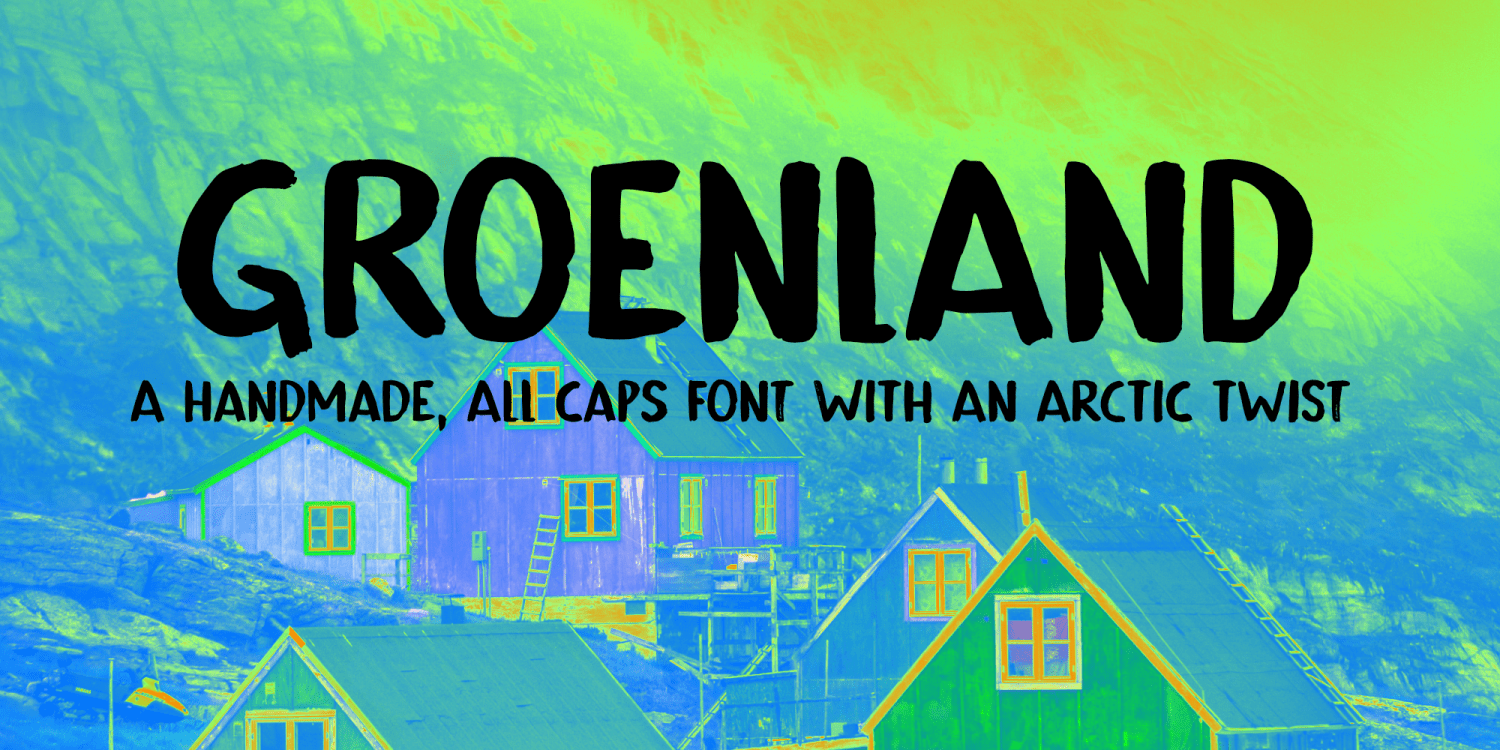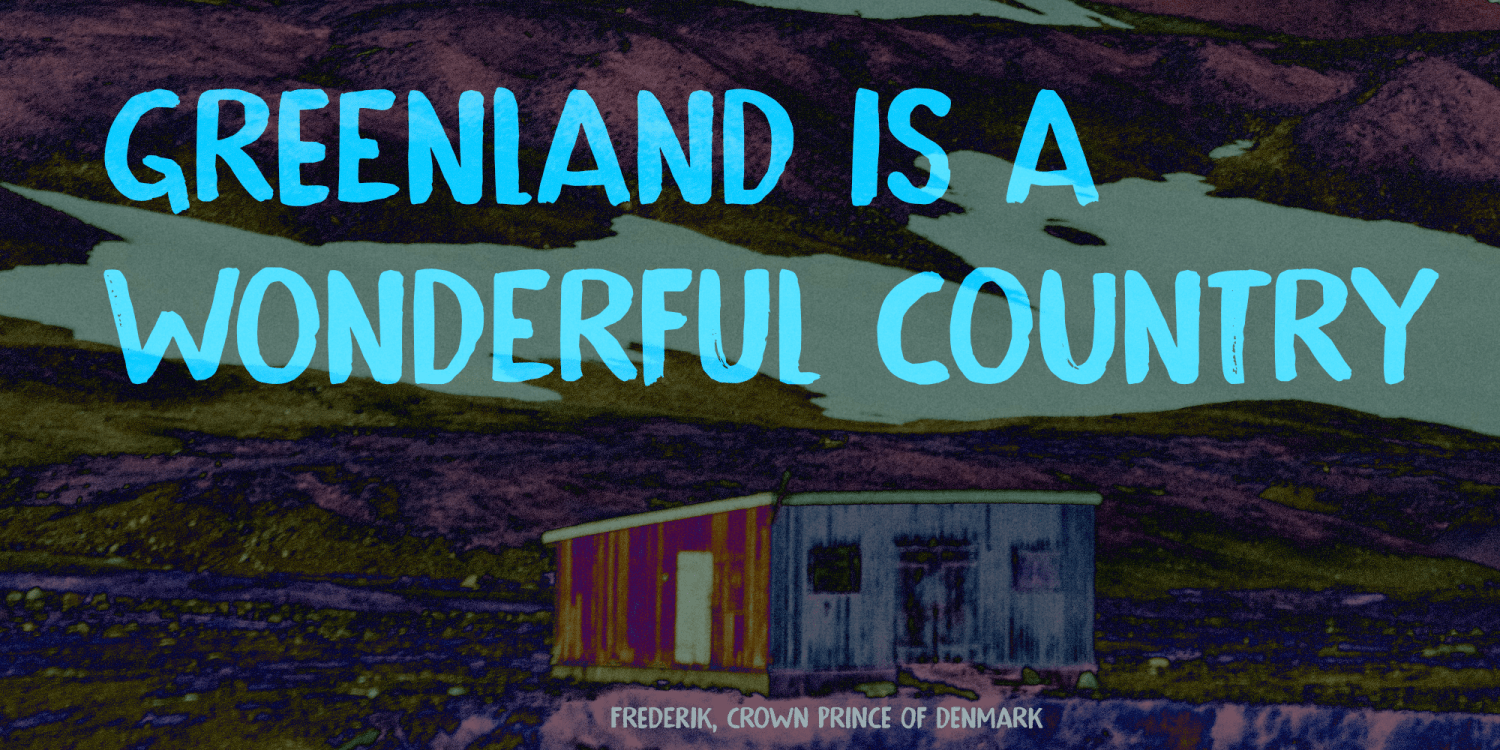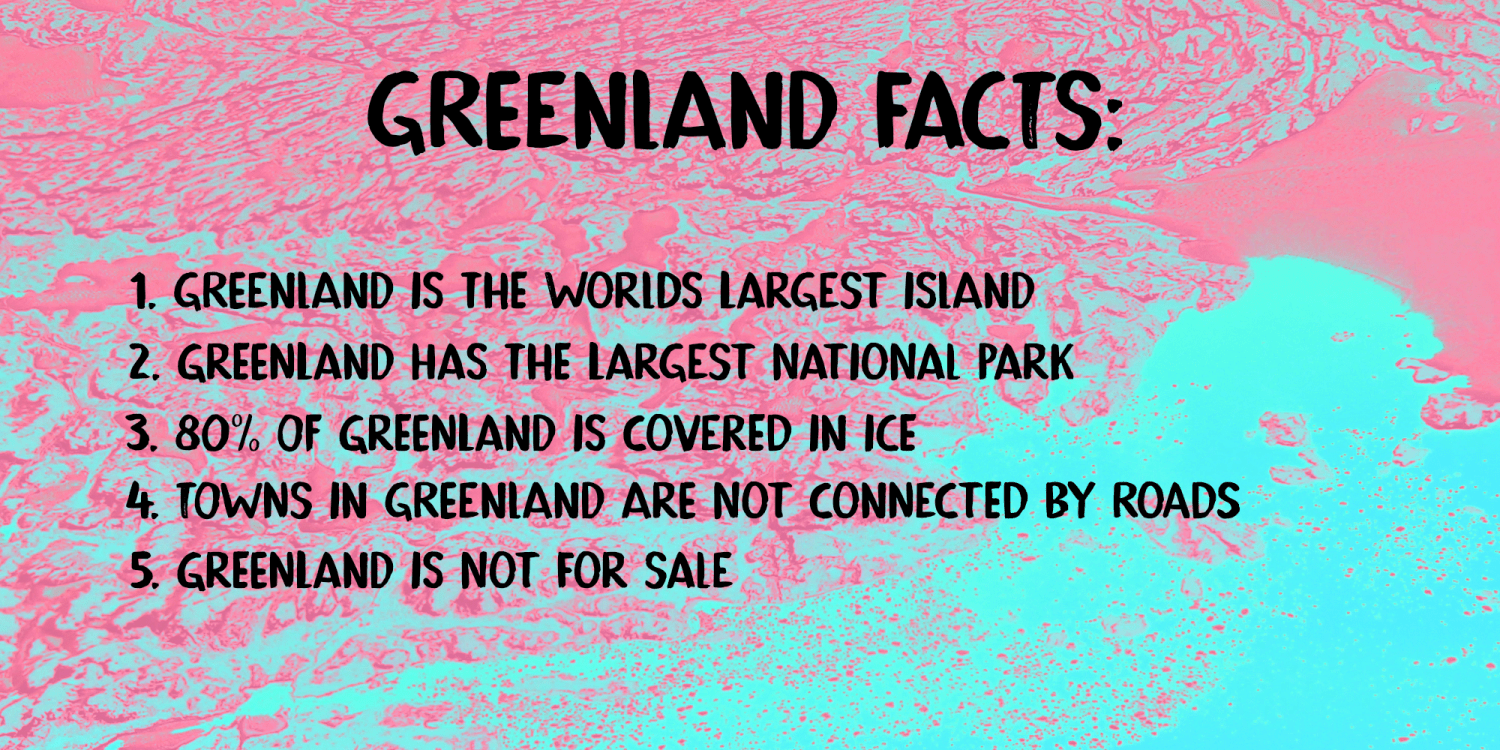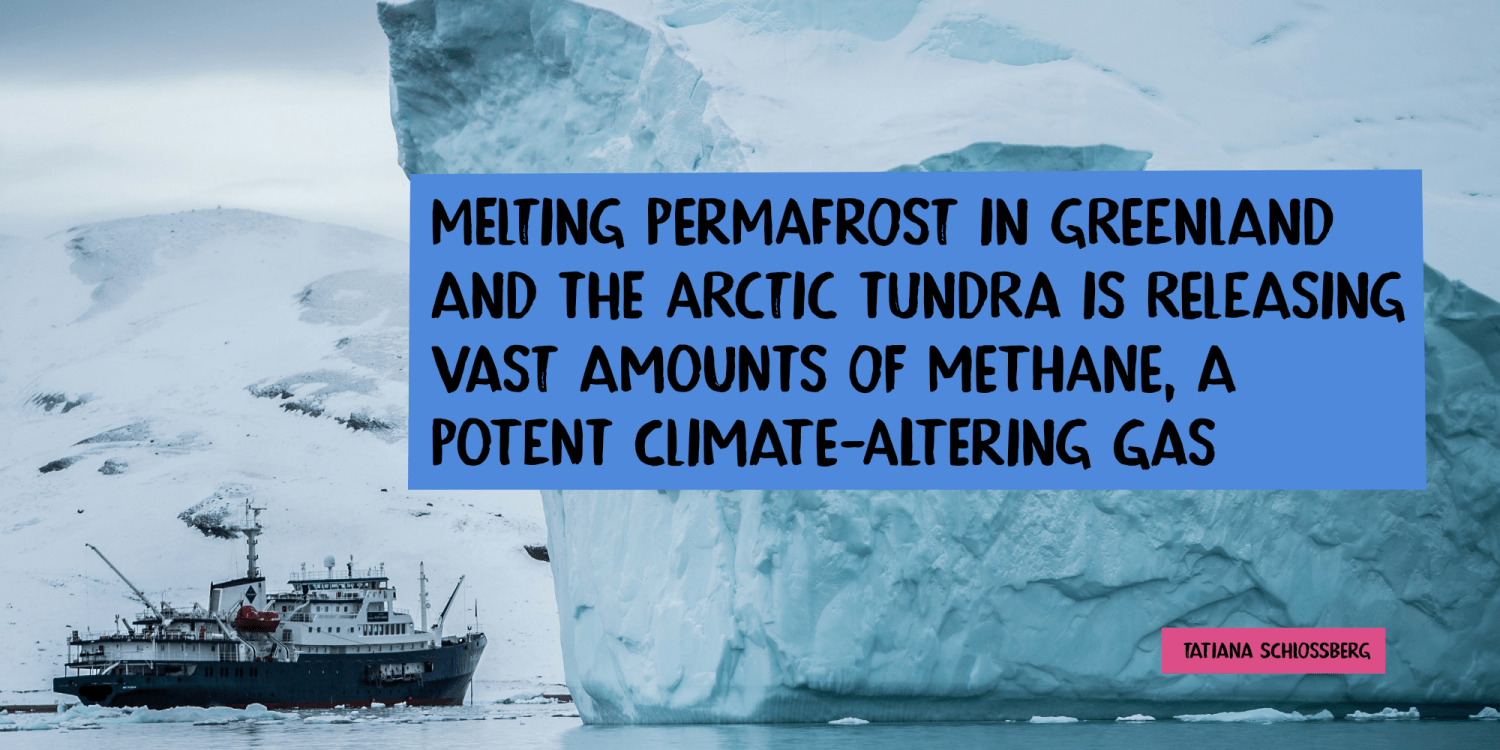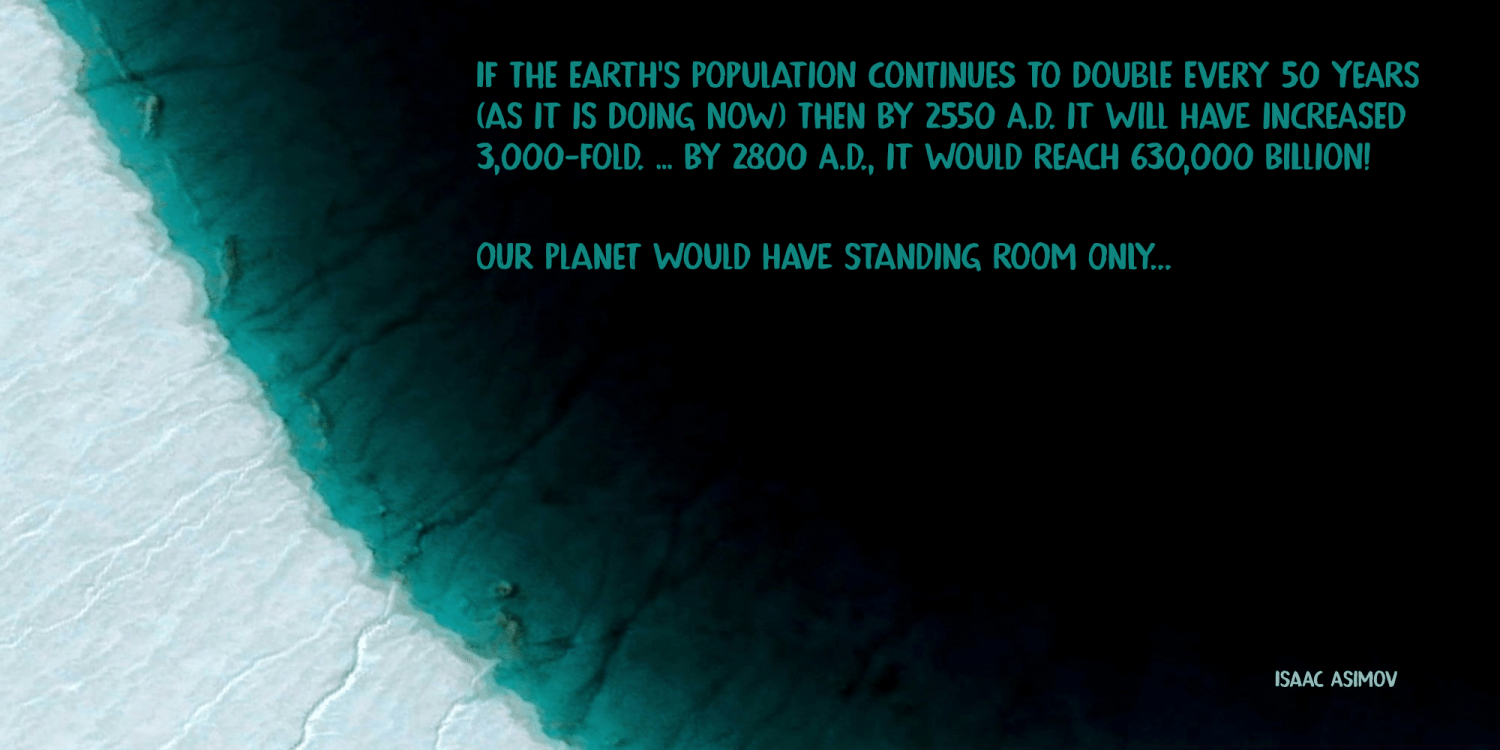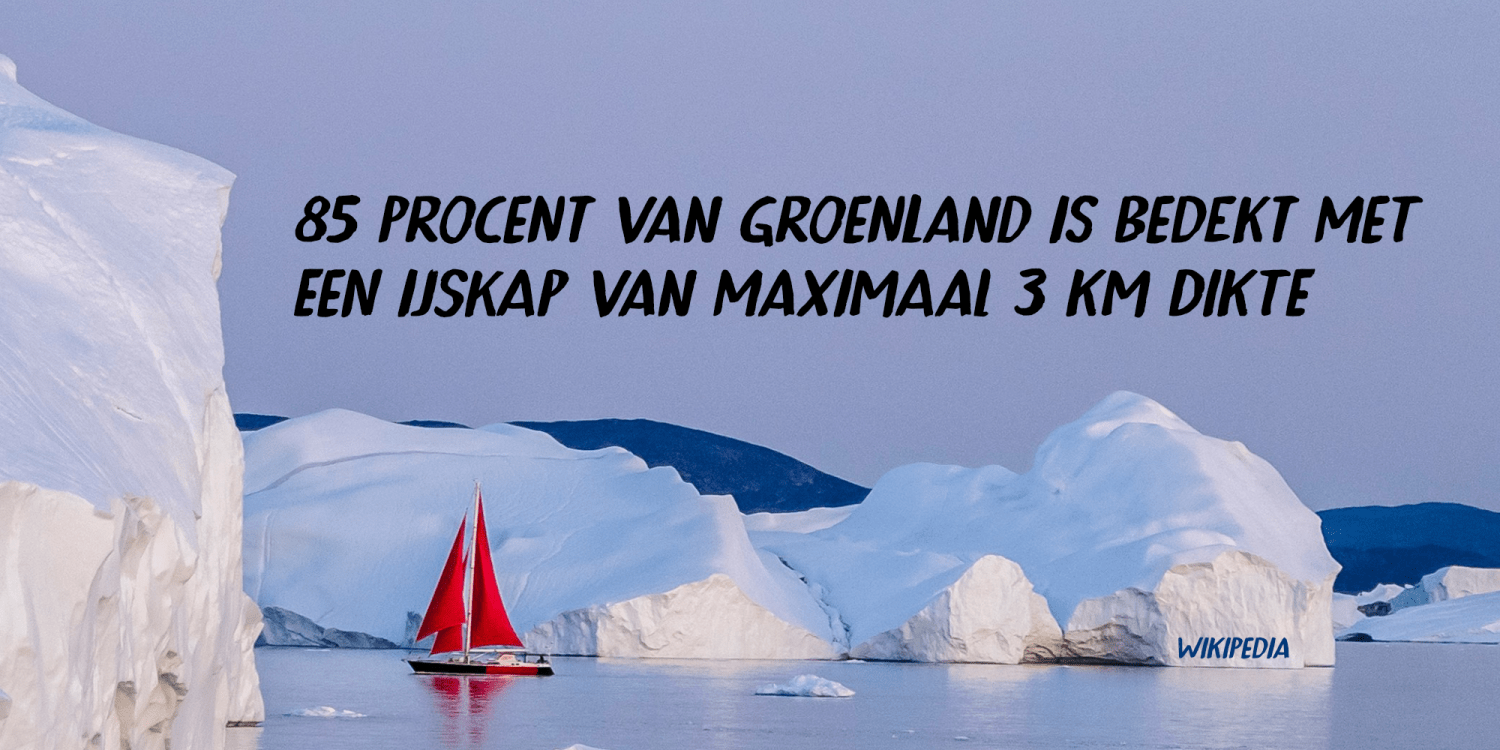
Groenland
Groenland is the Dutch name for Greenland. It means exactly that: Green Land. In Danish it is called Grønland (Green Land) and in Greenlandic it is called Kalaallit Nunaat, which translates as ‘land of the Greenlanders’. I guess the Greenlanders are right!nI haven’t visited Greenland, but I would love to! Maybe somewhere in the near future.
Groenland is a hand painted font. It is fat, eroded, very clear and easy to read. Use it for your posters, your websites and your product packaging. Or a sign that reads ‘Not for sale’.. ;-)
Groenland comes with extensive language support  and a set of automatically rotating alternates.